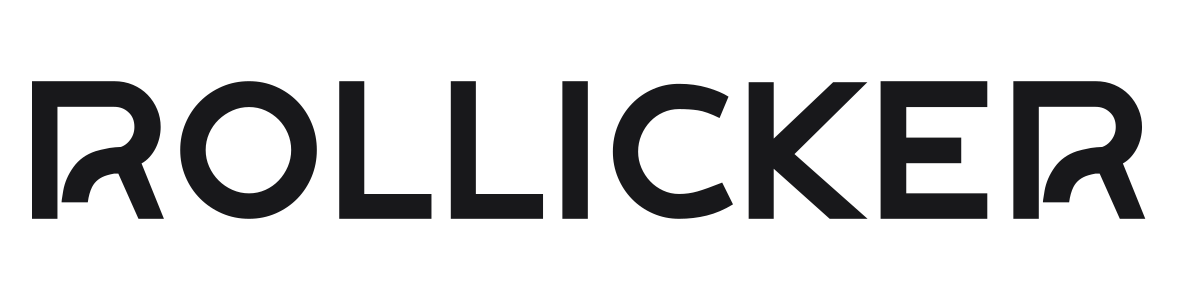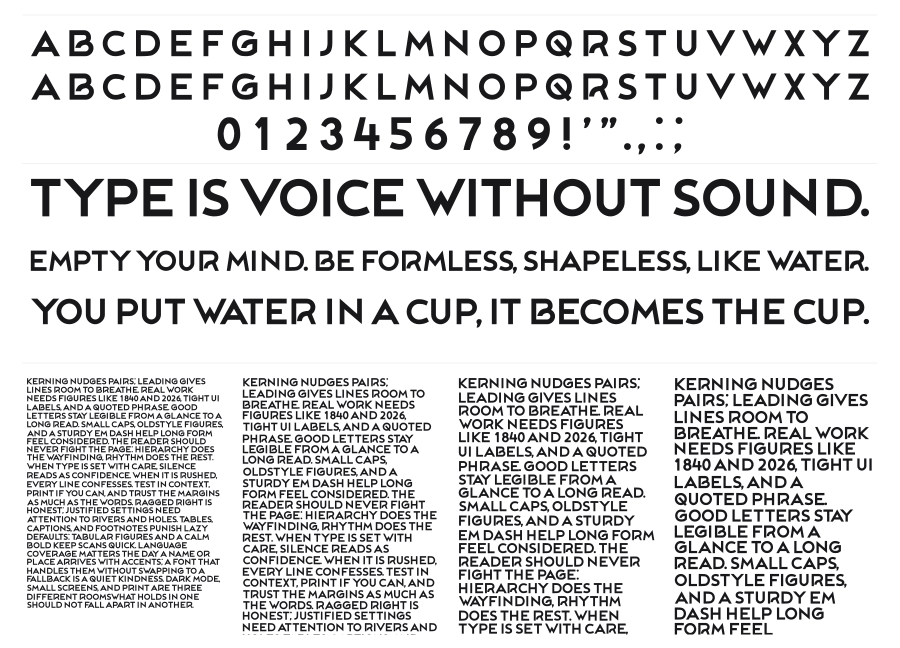
Rollicker
Rollicker is a bold geometric sans with wide proportions and quirky notched details that give it a distinctly playful edge. The heavy, near-monoweight strokes and casual irregularities keep it feeling energetic rather than rigid. It works confidently at large sizes for logos, packaging, and display headlines.